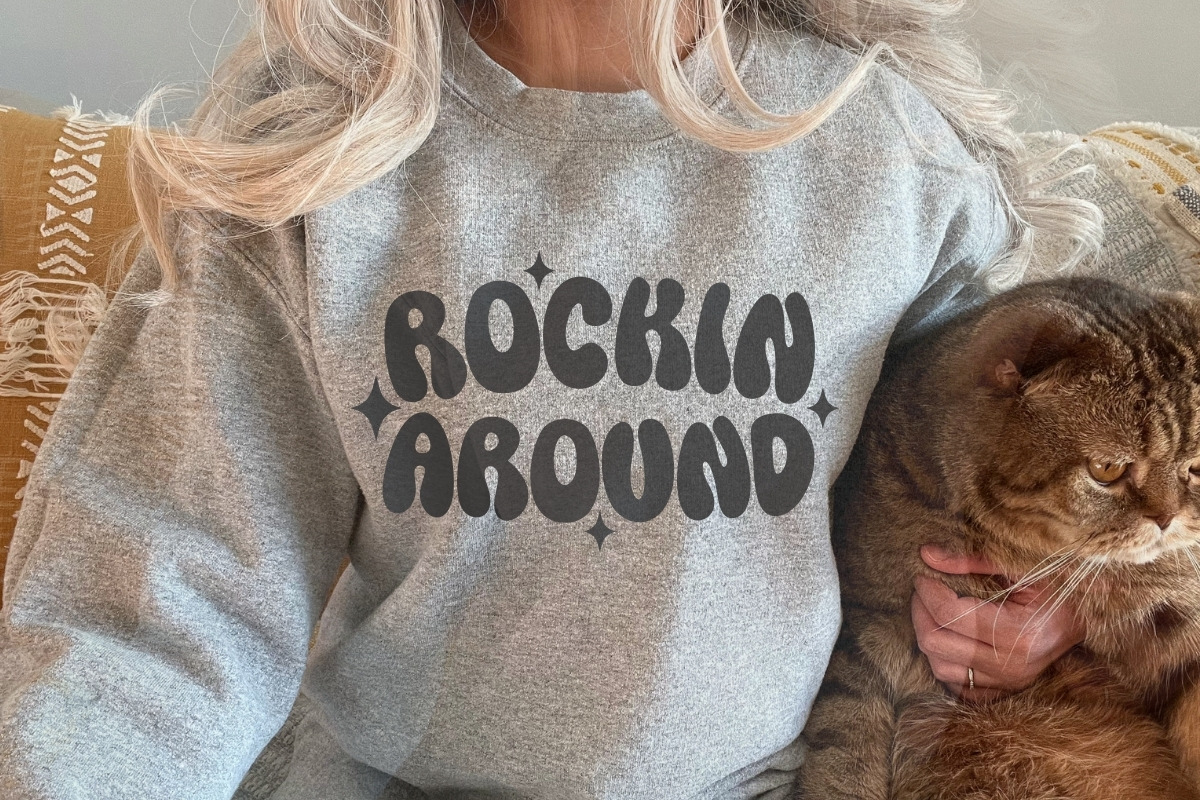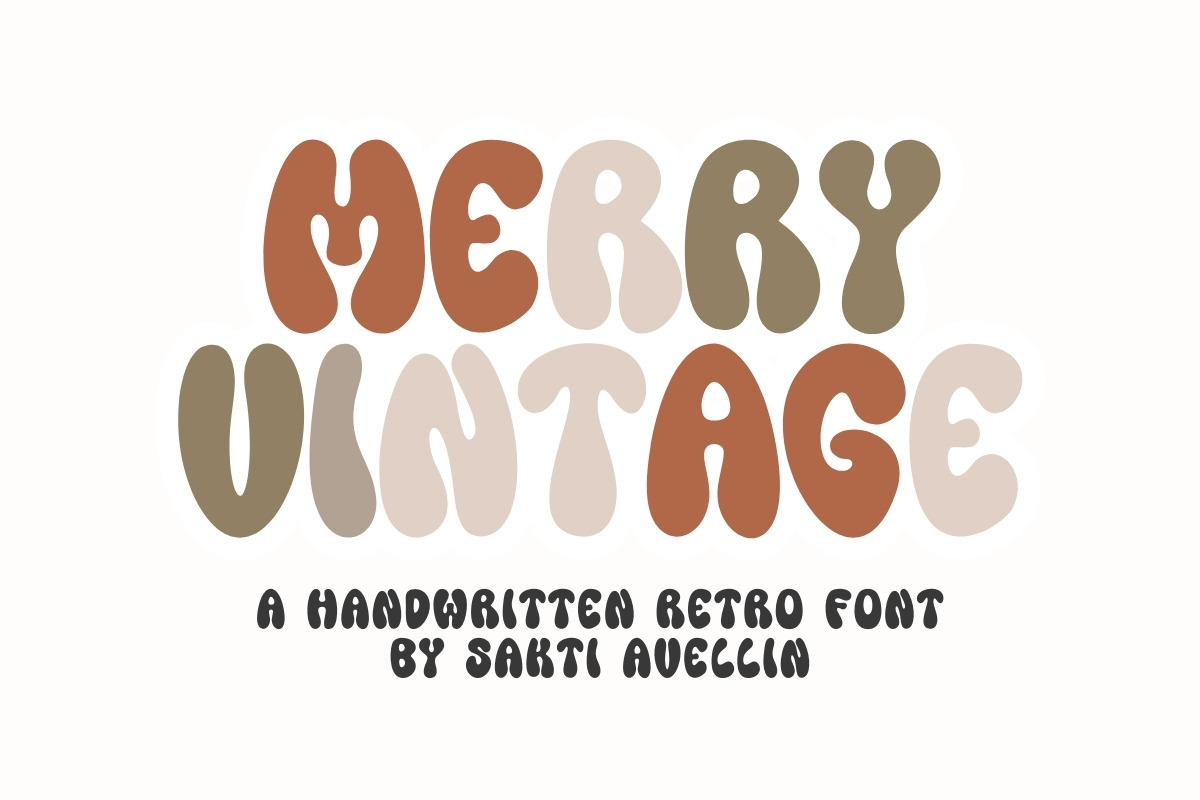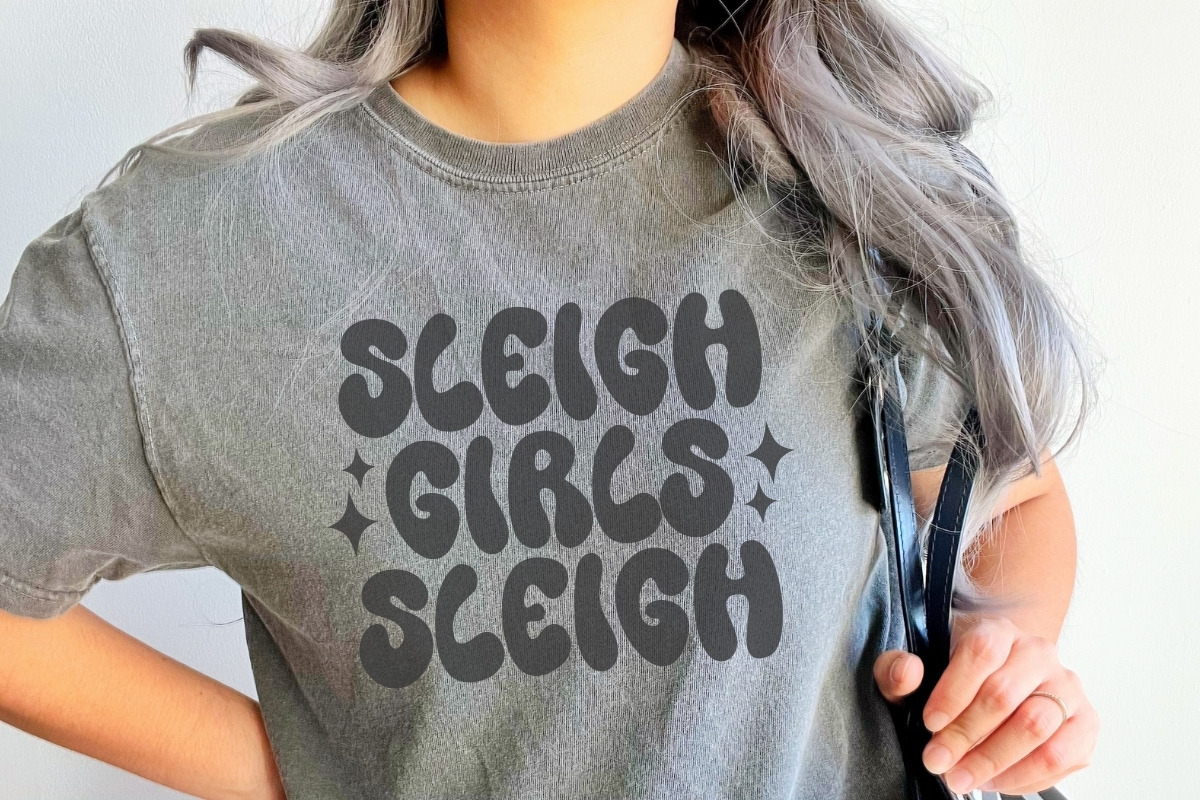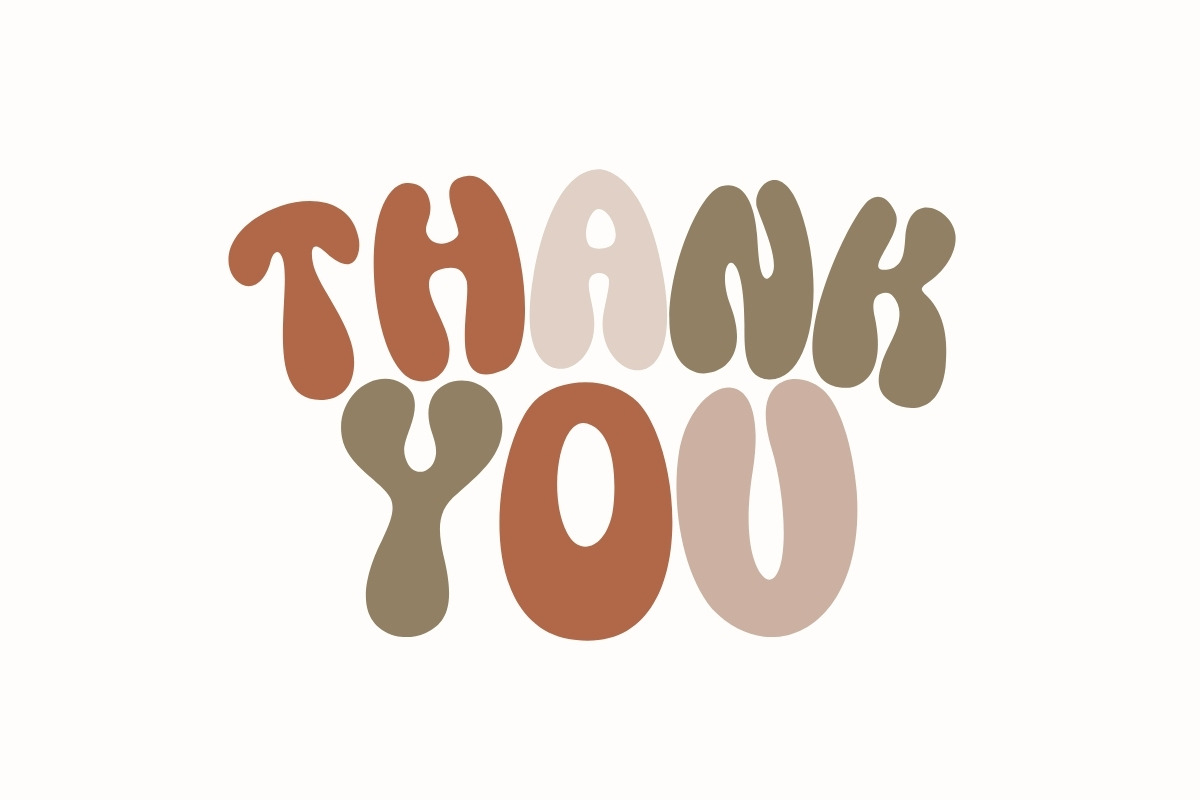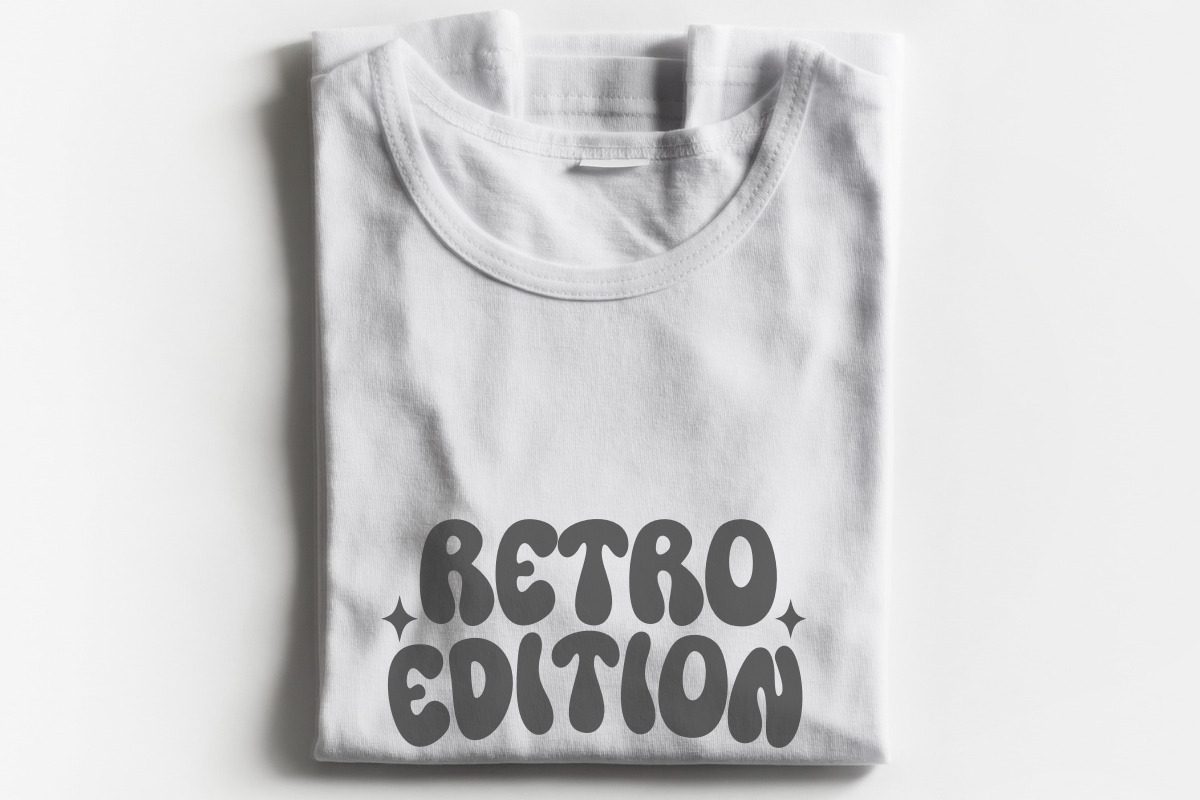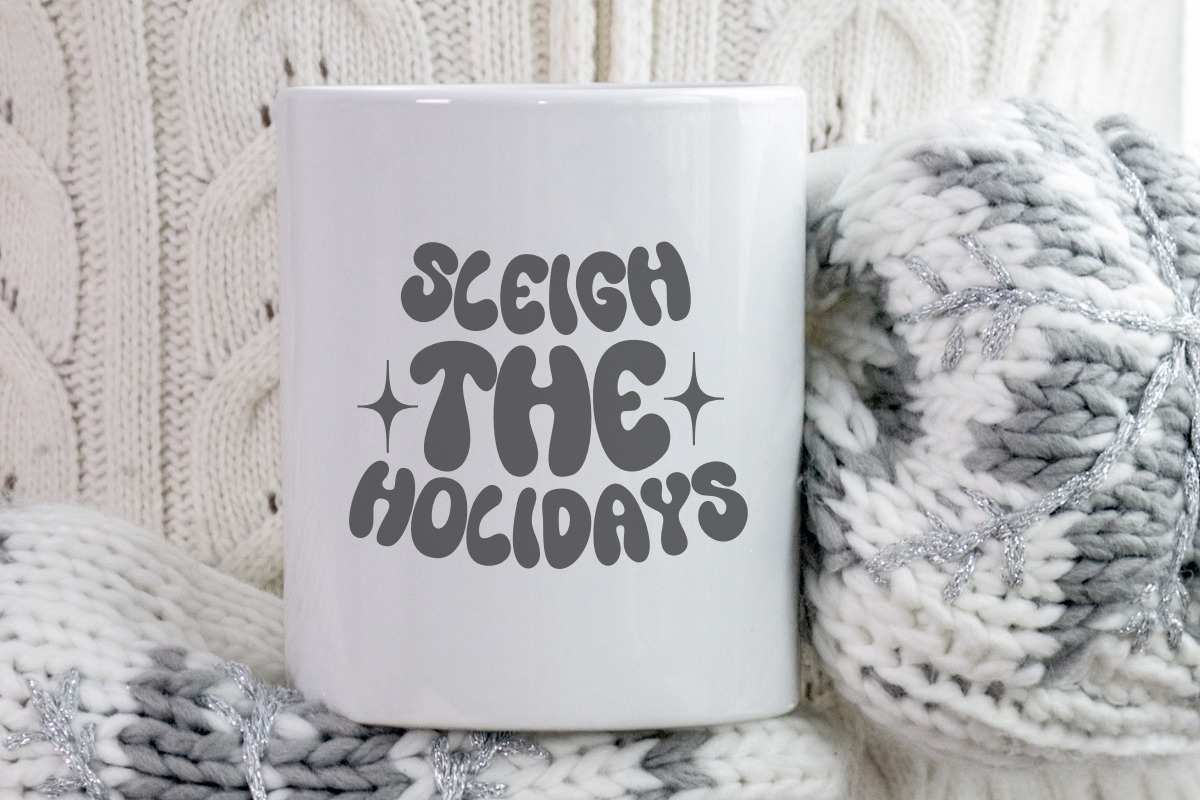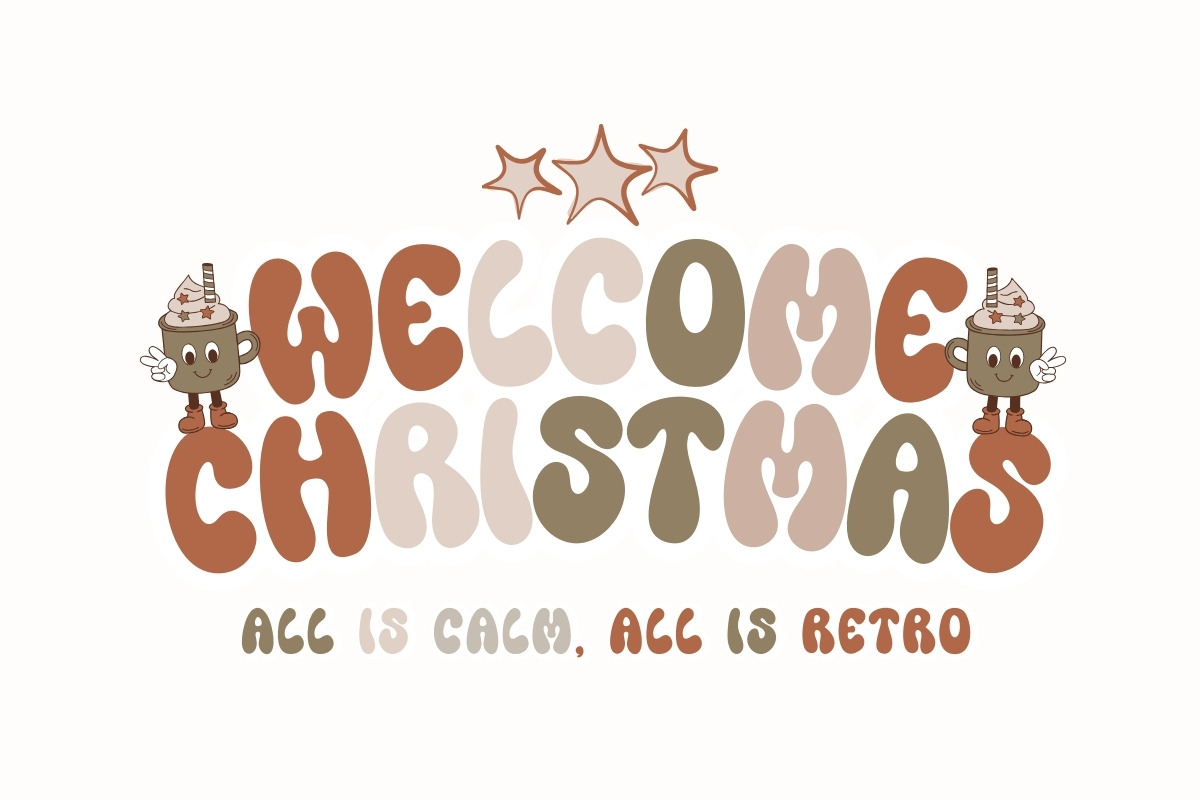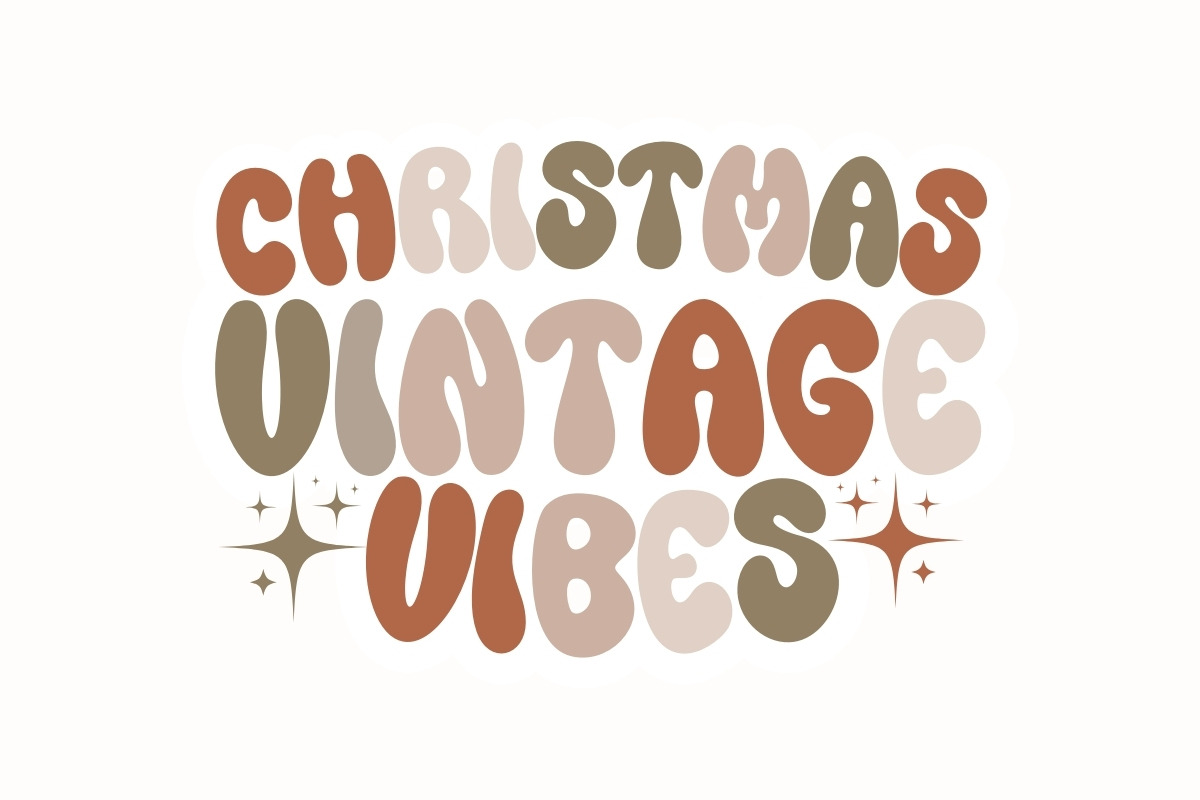
Merry Vintage - Retro Font
Merry Vintage is a charming, bold, and high-impact handwritten retro font designed to infuse your creative projects with a warm and soulful 1970s energy. This chunky display typeface features thick, organic letterforms with a playful, hand-drawn bounce, making it an ideal choice for vintage branding, groovy t-shirt designs, autumn-themed posters, and eye-catching social media graphics. Its unique, bubbly silhouette ensures it stands out as a powerful decorative font for headlines and product packaging, perfect for designers looking for a balance of classic charm and modern aesthetic funk. Bring a touch of nostalgia to your work with the inviting spirit of Merry Vintage!